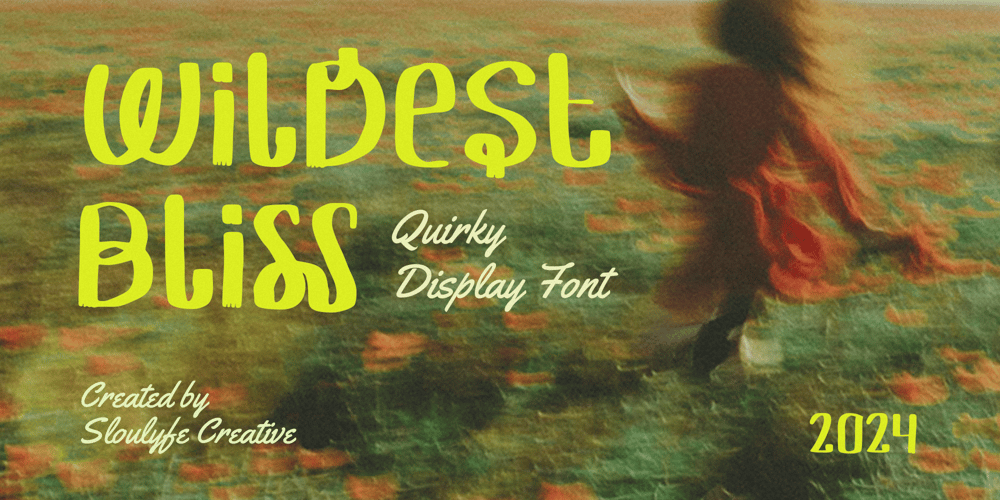
Wildest Bliss Font Family was designed by Amelia Dian Isnaini and published by Sloulyfe Studio. Wildest Bliss contains 1 styles and family package options. Imagine a font that’s both fun and functional. That’s Wildest Bliss! This quirky, bold typeface is more than just a pretty face. It’s a designer’s playground bursting with possibilities.Mix and match uppercase and lowercase to create playful headlines or add a touch of whimsy to labels and stationery. Features :Uppercase & lowercase, Numbers and punctuation, Alternates or Ligatures, Multilingual support & PUA encodedWildest Bliss is perfect for everything from playful greeting cards to high-fashion campaigns. Let your creativity run wild!